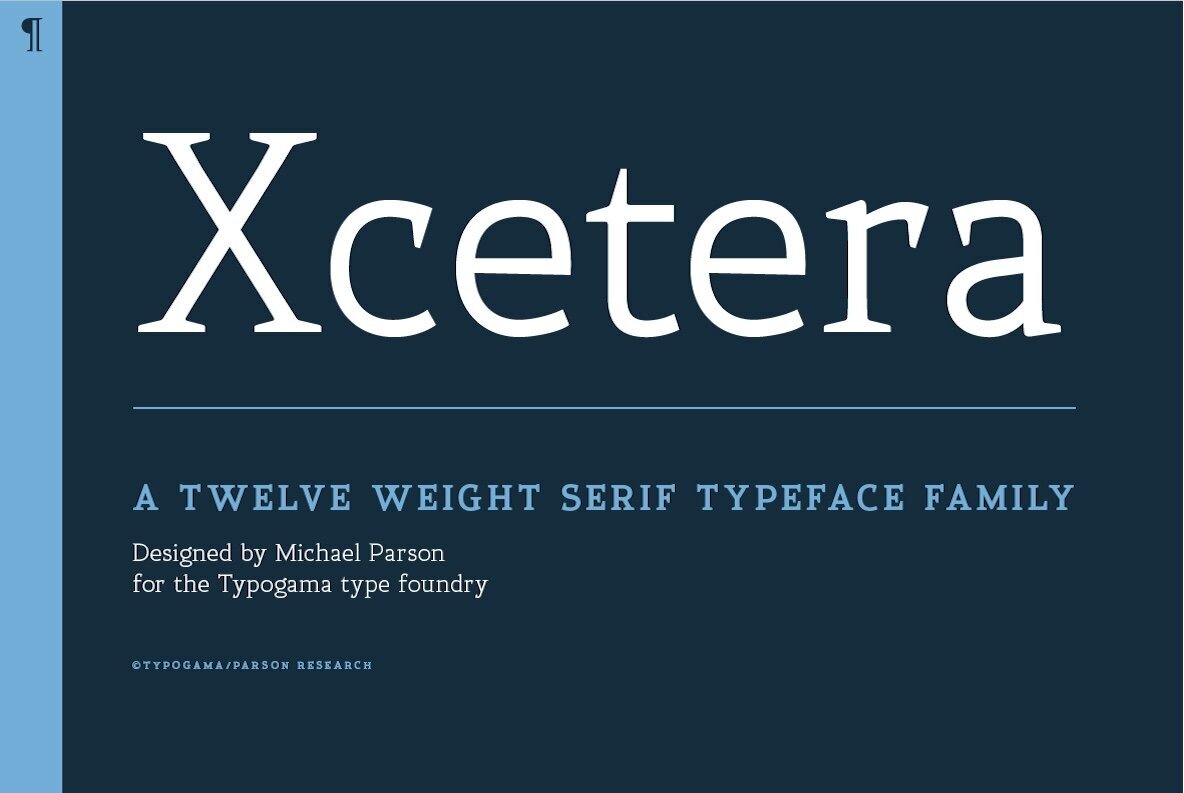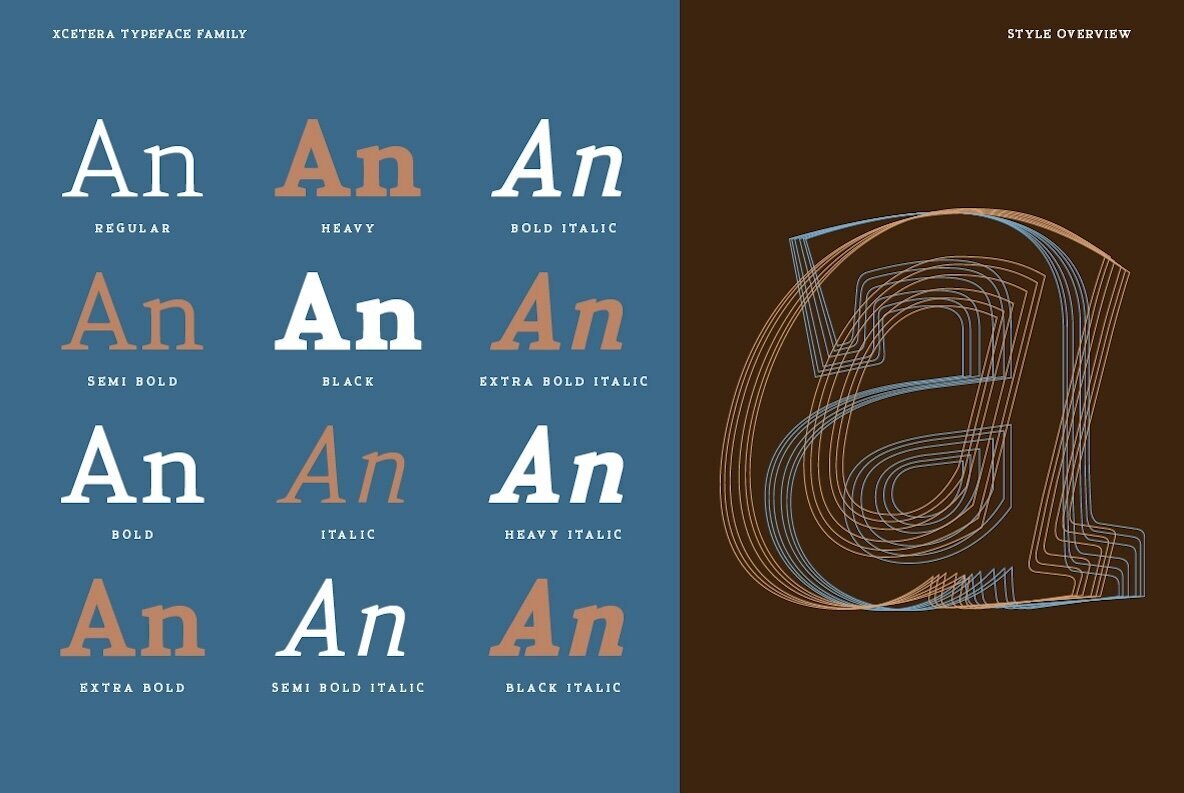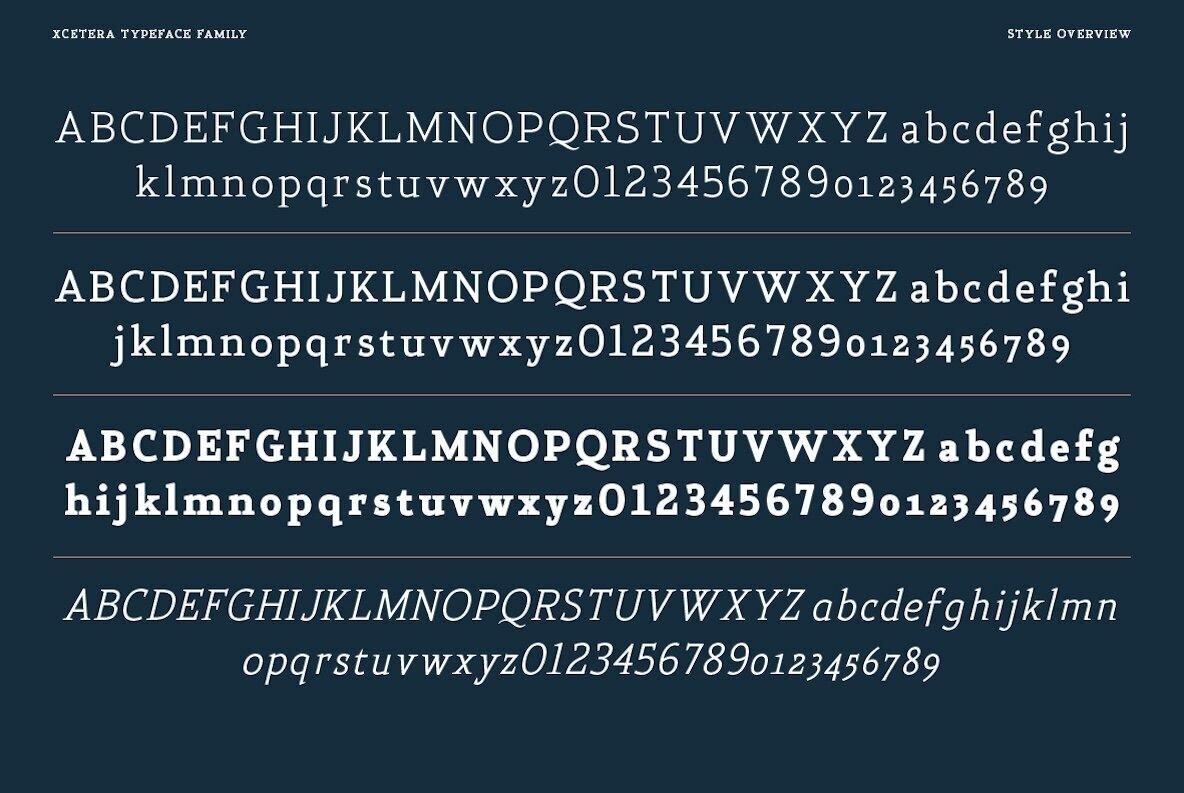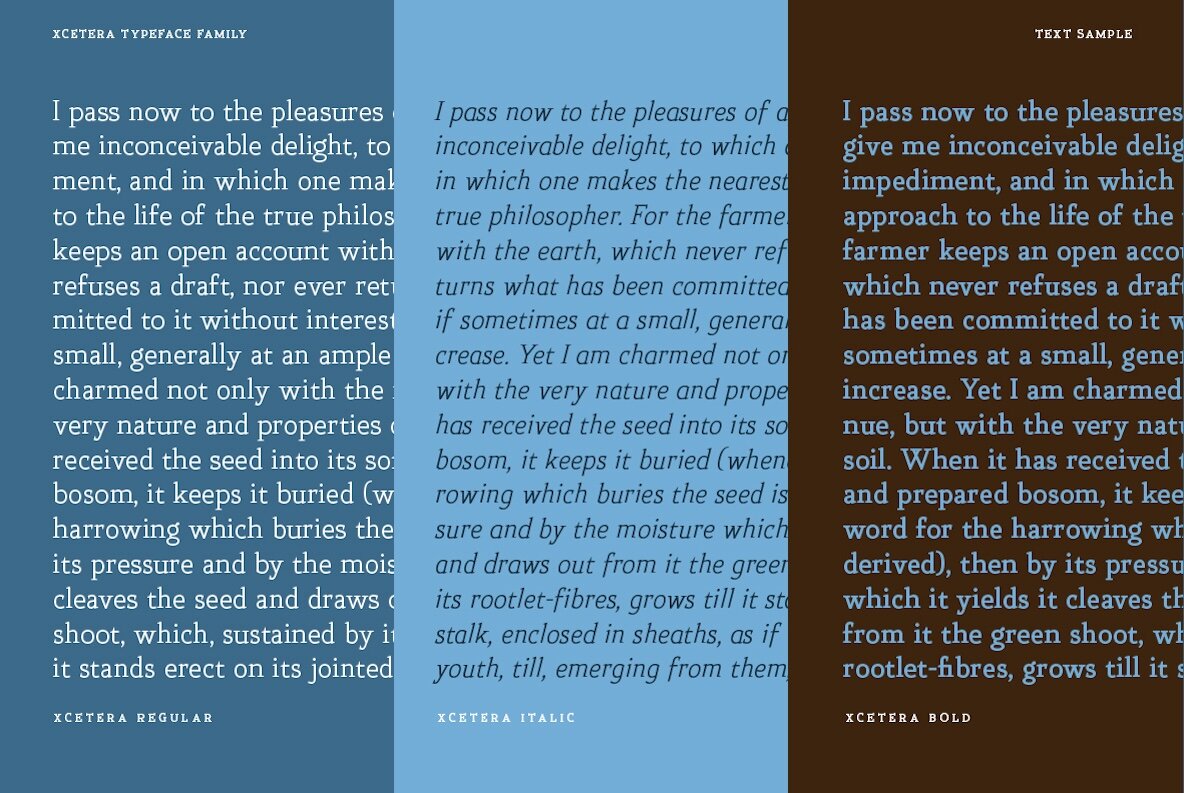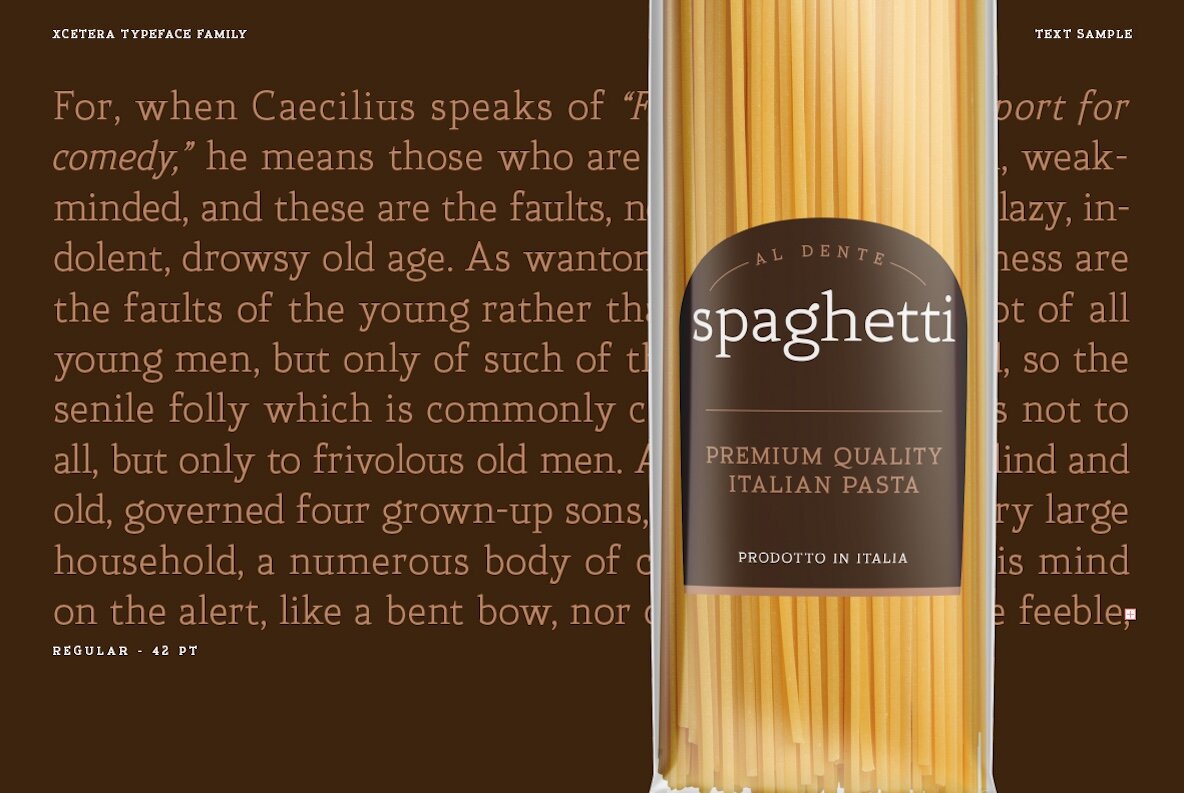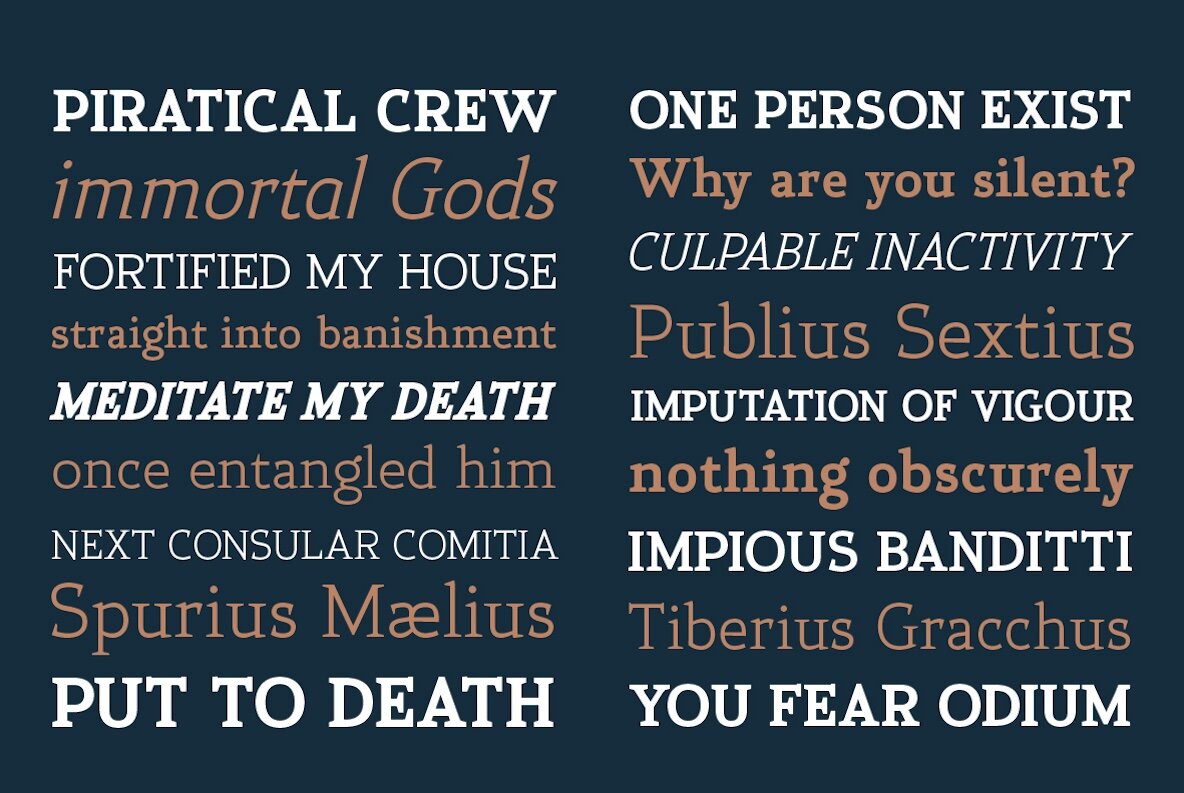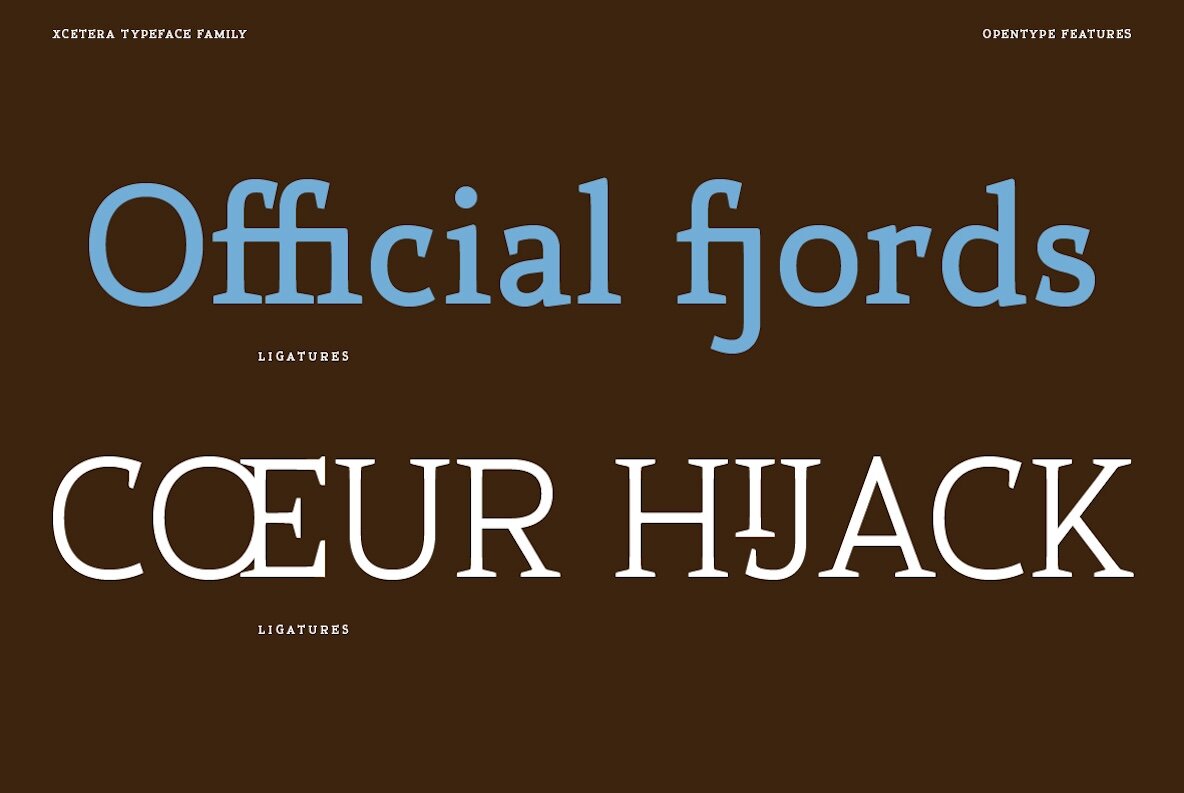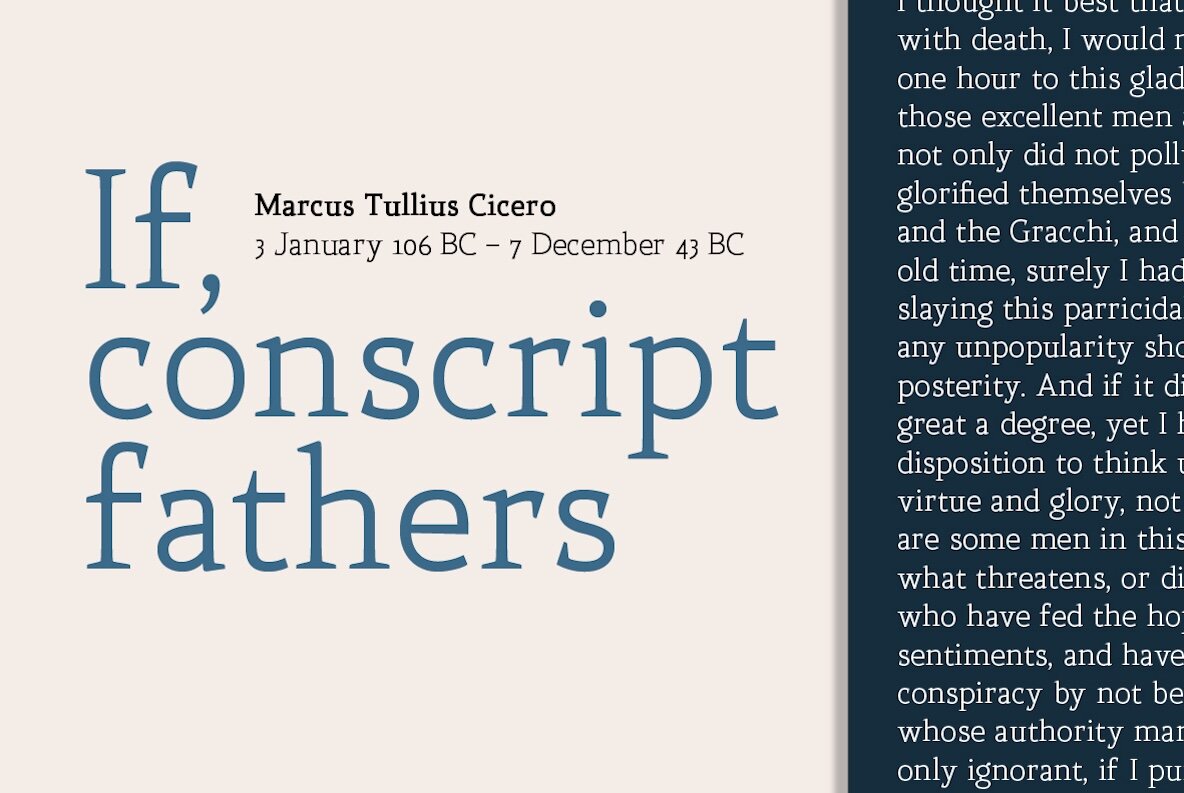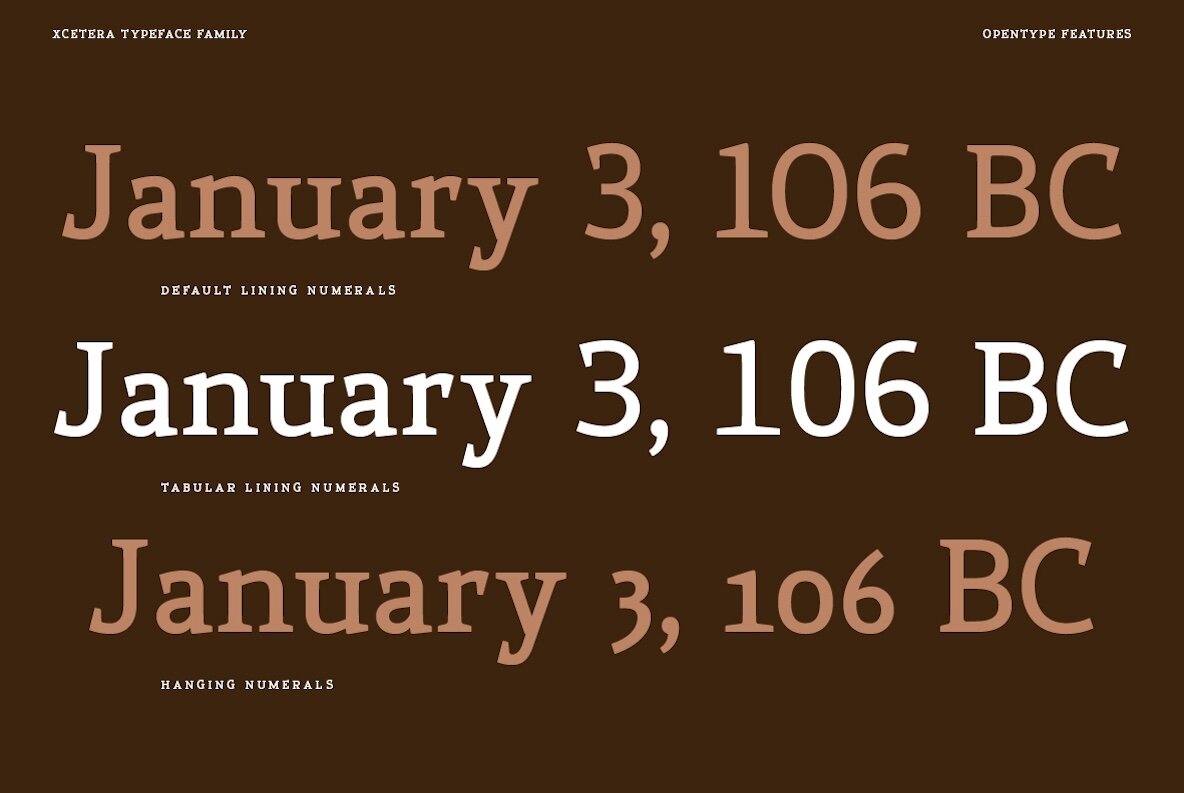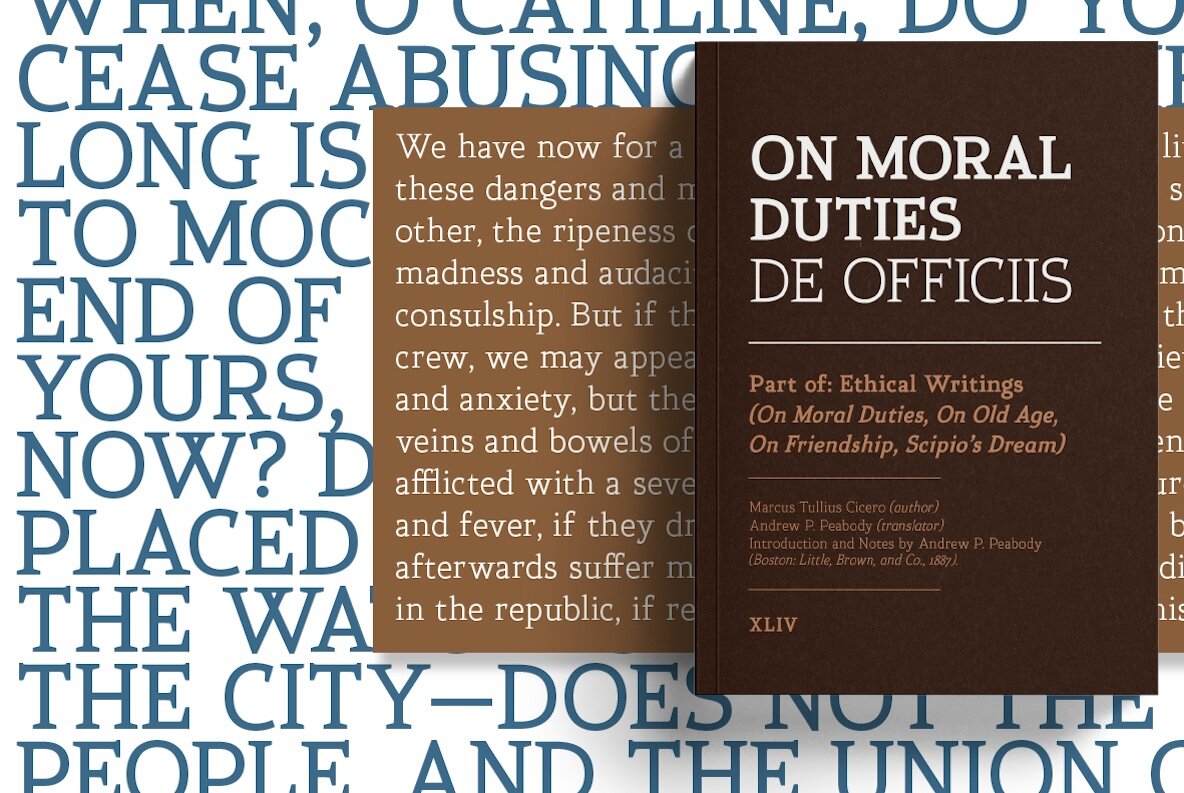
Xcetera
Foundry: Michael Parson
Work for the Xcetera typeface started with the desire to create a classical serif design but using the less contrasted stroke thickness found in a host of sans serif designs. My aim was to retain some of the clarity found in modern strokes yet use the serifs to aid in letter recognition and legibility. The result is a form of hybrid design that is surprising clear in small point sizes yet offer a lot of personality in larger formats. Suited for both display and text settings, Xcetera aims to be both functional and fun while looking to explore new possibilities for the classical typeface style.